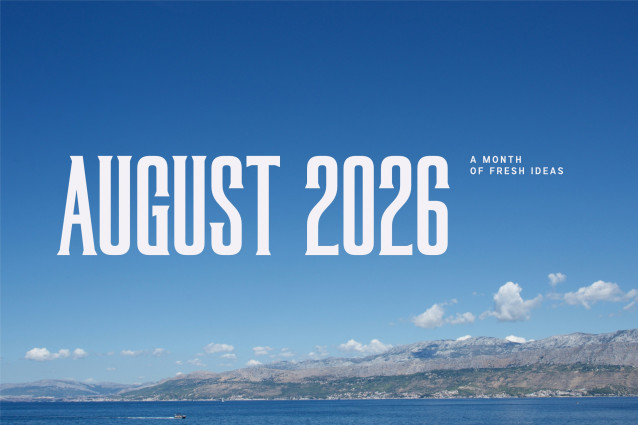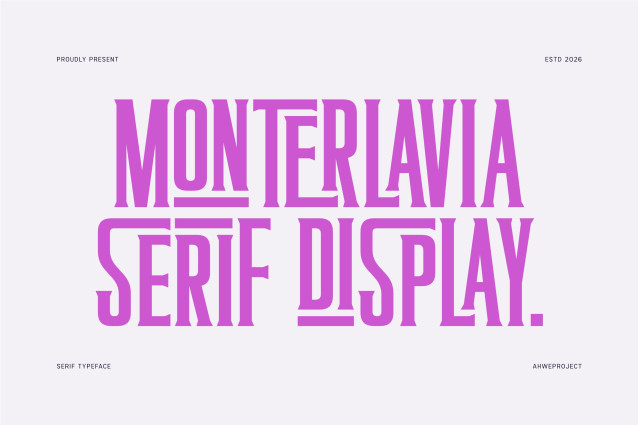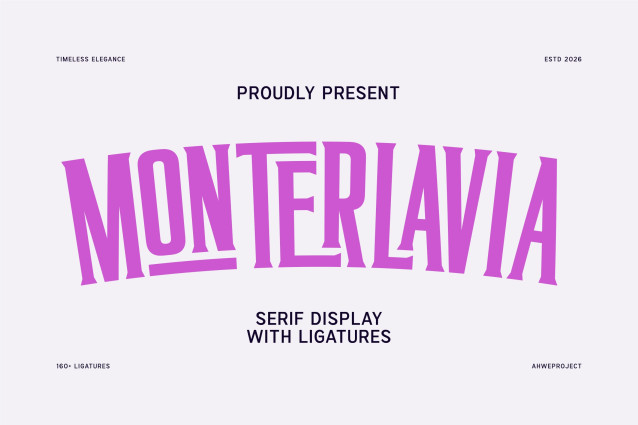
Monterlavia is a distinctive serif display typeface created to bring elegance, personality, and a sophisticated editorial feel to every design. With its tall proportions, expressive serif details, and graceful letterforms, Monterlavia delivers a strong visual presence while maintaining a refined and timeless character.
What makes Monterlavia especially unique is its collection of 160+ ligatures. These carefully designed letter combinations allow you to create more expressive typography and give words a beautifully customized appearance. Instead of looking like ordinary typed text, headlines and logotypes can feel closer to custom lettering—making each composition more memorable and visually distinctive.
Monterlavia combines classic serif elegance with a modern display personality. Its dramatic shapes work beautifully at larger sizes, making it especially suitable for designs where typography needs to become the main visual element. From a sophisticated fashion logo to an eye-catching magazine cover, Monterlavia can instantly add character and elevate the overall look of your project.
The variety of ligatures also gives you more freedom when experimenting with wordmarks and compositions. Different letter combinations can create different rhythms and silhouettes, helping designers discover a look that feels unique to each brand or project.